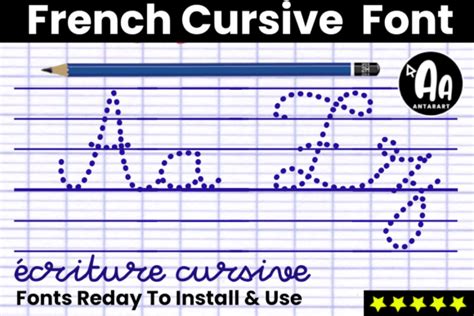
Do you appreciate the elegance of handwritten letters? Are you a fan of artistic typography? If so, then you must explore the beauty of French cursive font!
Our free download collection offers a variety of French cursive fonts that will transport you to a world of sophistication and charm. From the flowing curves of Montserrat to the understated glamour of Garamond, our selection includes fonts that will inspire your creative projects.
Statistics show that handwritten notes are becoming rarer in this digital age, but they still hold a special place in people's hearts. Writing a letter in a French cursive font can add a personal touch that will make your message stand out.
French cursive fonts have a unique artistry that has been admired by many for centuries. Those who know the beauty of the French language also appreciate the elegance and grace that comes with its handwritten script. Today, with our free download collection of French cursive fonts, you can experience this artistry for yourself.
The History of French Cursive Fonts
The roots of French cursive fonts can be traced back to the 15th century when handwriting became more popular than printing. Handwriting styles evolved over time, and by the 18th century, French cursive fonts had attained their full glory. French cursive fonts are characterized by delicate swirls and flourishes that make them a joy to read and write.
The Characteristics of French Cursive Fonts
French cursive fonts have some unique features that distinguish them from other styles of handwriting. They are light and flowing, with elongated curves and loops. They tend to have less pressure on the downstrokes and a high degree of legibility.
The Importance of French Cursive Fonts in Art
French cursive fonts are an integral part of calligraphy, which is a form of visual art. Many artists use calligraphy to create beautiful works of art, including wedding invitations, greeting cards, posters, and more. French cursive fonts are particularly popular for delicate designs because they are elegant and refined.
French Vs. Other Cursive Fonts
Each cursive font has its own distinctive characteristics that set it apart from others. For instance, English cursive fonts tend to be more angular and bold, while Italian cursive fonts are more relaxed and flowing. French cursive fonts are known for their delicate curves, making them ideal for creating ornate designs with lots of flourishes.
| French Cursive Fonts | English Cursive Fonts | Italian Cursive Fonts | |
|---|---|---|---|
| Style | Graceful and flowing | Angular and bold | Relaxed and flowing |
| Purpose | Delicate designs with flourishes | Clear and concise communication | Harmonious and romantic designs |
| Legibility | High | High | Medium |
Using French Cursive Fonts in Modern Design
In recent years, there has been a resurgence of interest in French cursive fonts in modern design. Many designers are incorporating this elegant script into their work to add a touch of class and sophistication. French cursive fonts work well in a variety of design projects, such as branding, packaging, web design, and more.
Benefits of Using Our Free Download Collection of French Cursive Fonts
Our free download collection of French cursive fonts offers an excellent opportunity to experience the artistry of this style of handwriting. With a variety of fonts to choose from, you can experiment with different designs and styles to find the perfect fit for your project. Our fonts are also easy to install and use, making it simple to incorporate them into your design work.
Tips for Choosing the Right French Cursive Font
When choosing a French cursive font, it's important to consider the style and purpose of your project. Choose a font that matches the overall tone and theme of your project, and try to stay consistent with the typography throughout. It's also important to consider legibility – while French cursive fonts are beautiful, they can be difficult to read in certain situations.
French cursive fonts are more than just a style of handwriting – they are a form of art that has stood the test of time. With our free download collection, you can experience the beauty of this artistry for yourself and incorporate it into your own design projects. So why not add some grace and elegance to your work today?
- Are these fonts easy to read? While French cursive fonts may appear difficult to read at first, they are actually quite legible once you get used to the style. Plus, they add a unique flair to any project.